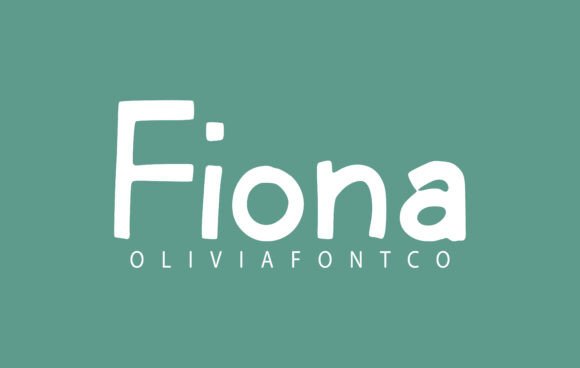
Fiona Font: The Ultimate Handwritten Font for Creative Expression
In the world of typography, fonts play a crucial role in conveying emotions and setting the tone for a brand or design. Among the numerous fonts available, Fiona Font stands out as a unique and authentic handwritten font with a romantic touch. Designed to capture the hearts of designers and creatives, Fiona Font is an excellent choice for those seeking to elevate their projects with a personal and elegant feel.
The Story Behind Fiona Font
Fiona Font is more than just a typface; it’s a tool for creative expression. Its design is rooted in the desire to create a font that is both legible and aesthetically pleasing. With its smooth lines and natural flow, Fiona Font is perfect for a wide range of applications, from magazine headlines to social media posts, branding, wedding invitations, and more.
Key Features of Fiona Font
- Authentic Handwritten Style: Fiona Font boasts an authentic handwritten look that adds a personal touch to any design.
- Romantic Touch: The font’s elegant and flowing lines give it a romantic feel, perfect for designs that require a touch of sophistication.
- Legibility: Despite its decorative nature, Fiona Font remains highly legible, making it suitable for both title and body text.
- Versatility: Fiona Font can be used across various platforms and design materials, including magazines, social media, branding, wedding invitations, and cards.
Why Choose Fiona Font?
With the vast array of fonts available, selecting the right one for your project can be daunting. Here are several reasons why Fiona Font could be the perfect choice for your next creative endeavor:
- Unique and Memorable: Fiona Font’s distinctive style ensures that your designs stand out and remain memorable.
- Emotional Connection: The romantic and personal feel of Fiona Font helps create an emotional connection with your audience, making your designs more impactful.
- Time-Saving: Given its versatility and legibility, Fiona Font can be used across multiple projects, saving you time and effort in selecting different fonts for different needs.
- Ease of Use: Fiona Font is designed to be user-friendly, making it easy to incorporate into your designs, regardless of your proficiency level.
Applications of Fiona Font
Fiona Font’s versatility is one of its most compelling features. Here are some of the many applications where Fiona Font can make a significant impact:
- Magazine Headlines: Add a touch of elegance and sophistication to your magazine titles with Fiona Font.
- Social Media: Elevate your social media posts with a font that captures attention and conveys emotion.
- Branding: Use Fiona Font to create a unique and memorable brand identity that resonates with your audience.
- Wedding Invitations: The romantic feel of Fiona Font makes it perfect for wedding invitations, adding a personal and elegant touch.
- Cards: Whether it’s a greeting card, a thank you note, or any other card, Fiona Font can add a special touch.
Tips for Using Fiona Font Effectively
To maximize the impact of Fiona Font, consider the following tips:
- Pair with Complementary Fonts: When using Fiona Font alongside other fonts, choose ones that complement its style to maintain harmony in your design.
- Adjust Size and Color: Experiment with different sizes and colors to ensure Fiona Font aligns with your design’s overall aesthetic and hierarchy.
- Consider Line Spacing: Pay attention to line spacing to maintain readability, especially when using Fiona Font for body text.
- Test on Different Platforms: Ensure Fiona Font looks great across various platforms and devices to maintain consistency in your brand’s visual identity.
| Font Name | Fiona Font |
Fiona Font is a versatile and elegant handwritten font that can elevate your designs to new heights. Its unique blend of authenticity, legibility, and romantic charm makes it an excellent choice for a wide range of creative projects. Whether you’re a seasoned designer or just starting out, Fiona Font offers the potential to make your designs more memorable, impactful, and personal. By incorporating Fiona Font into your typography arsenal, you’re not just choosing a font; you’re embracing a tool for creative expression that can connect with your audience on a deeper level.
In the world of design, fonts like Fiona Font remind us of the power of typography in storytelling and brand identity. With its wide range of applications and ease of use, Fiona Font is poised to become a favorite among designers seeking to infuse their work with a touch of romance and elegance. So, take the first step towards creating captivating designs by exploring the possibilities that Fiona Font has to offer.